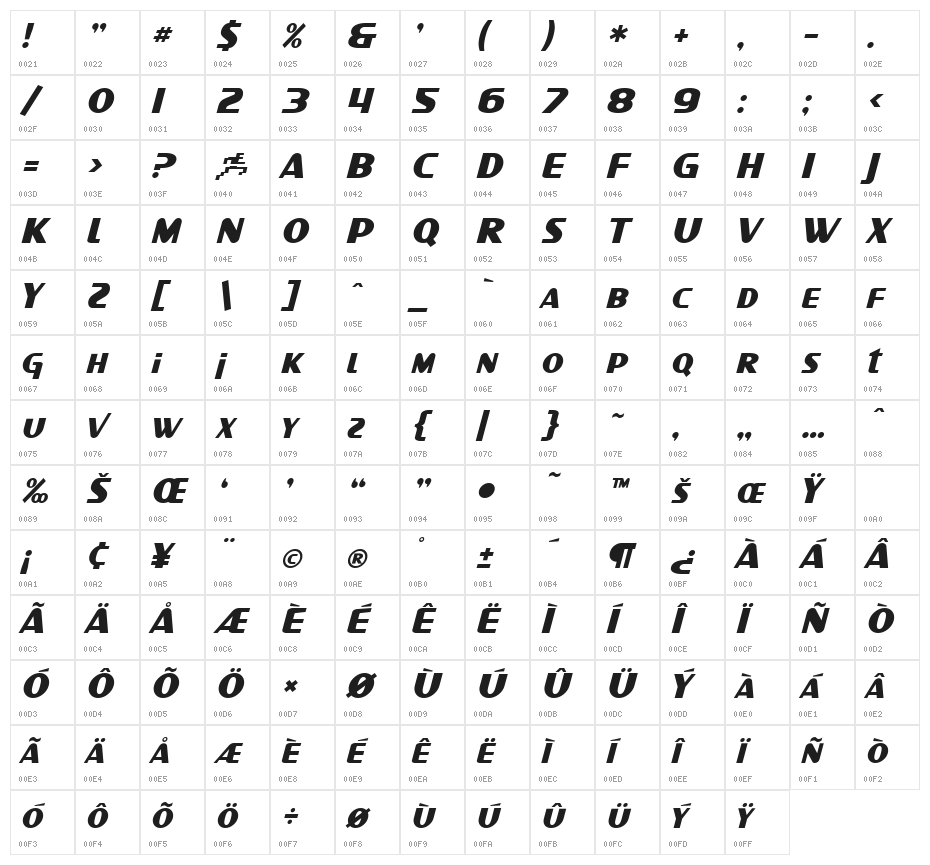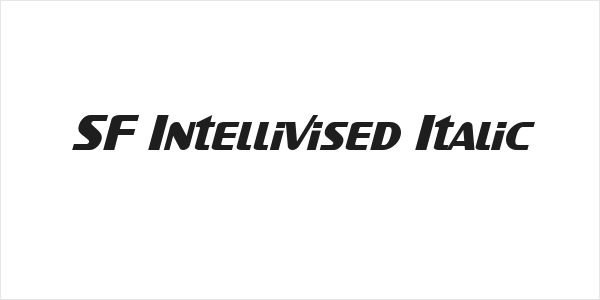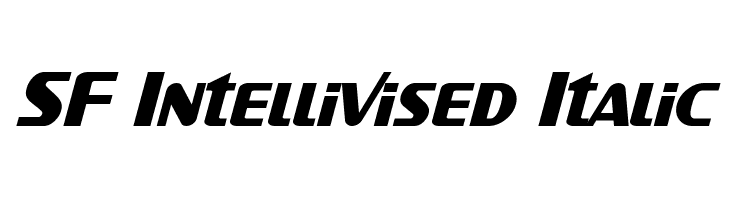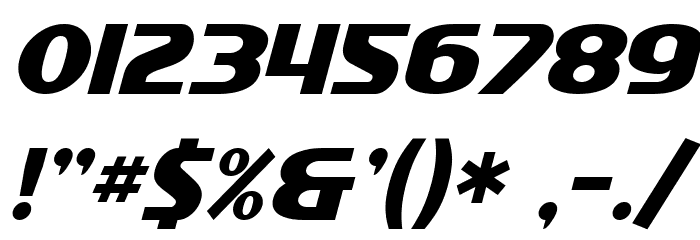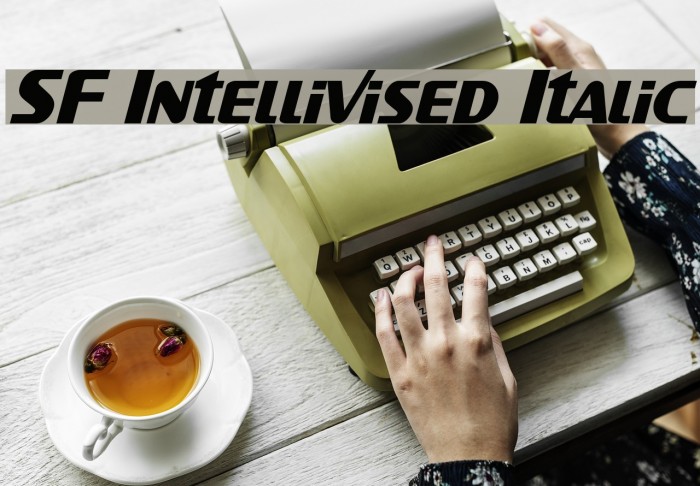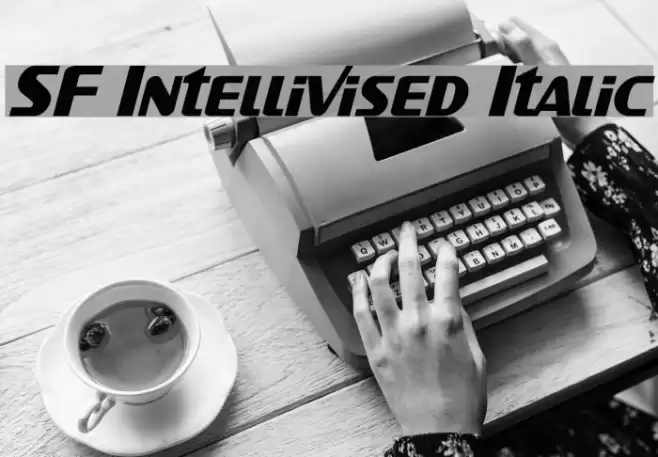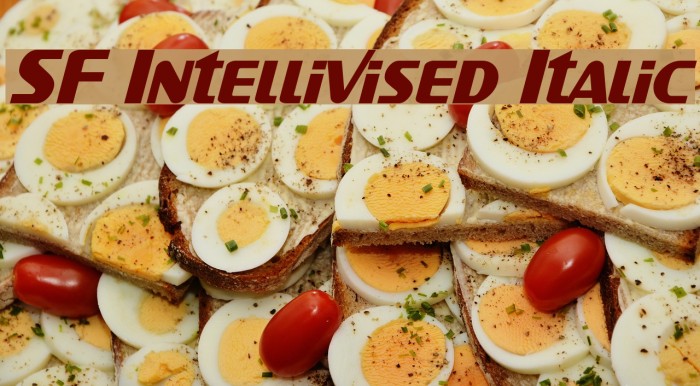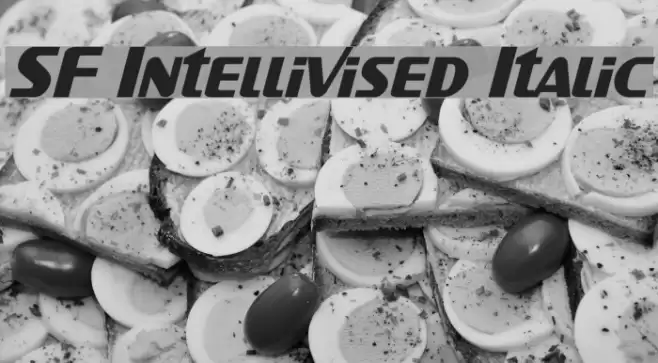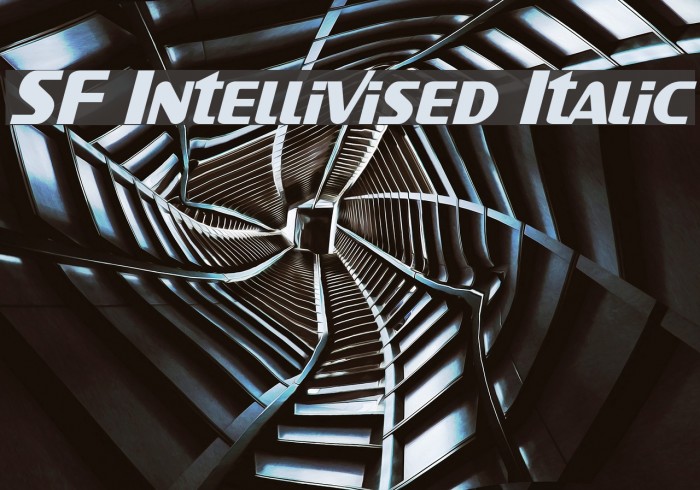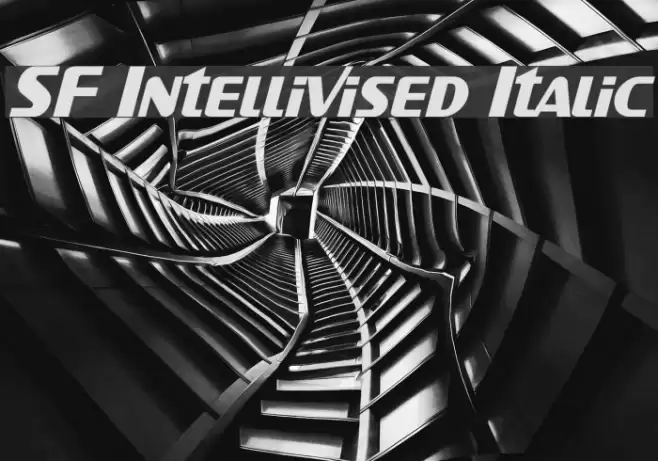
SF Intellivised Italic Font
SF Intellivised Italic Description
This font features a dynamic and modern italic style with a forward-leaning posture that conveys a sense of motion and speed. The characters are bold and robust, with a slight slant that enhances their contemporary appeal. The uppercase and lowercase letters are well-balanced, maintaining a consistent style throughout. The numerals are clear and distinct, making them suitable for various applications. Special characters are included, adding versatility to the font's usage. The overall design is sleek and professional, ideal for projects that require a modern and energetic look.
| Use Case | Logos, Headlines, Branding |
| Proposed Projects | Ideal for branding, sports team logos, automotive advertisements, and tech-related projects. |